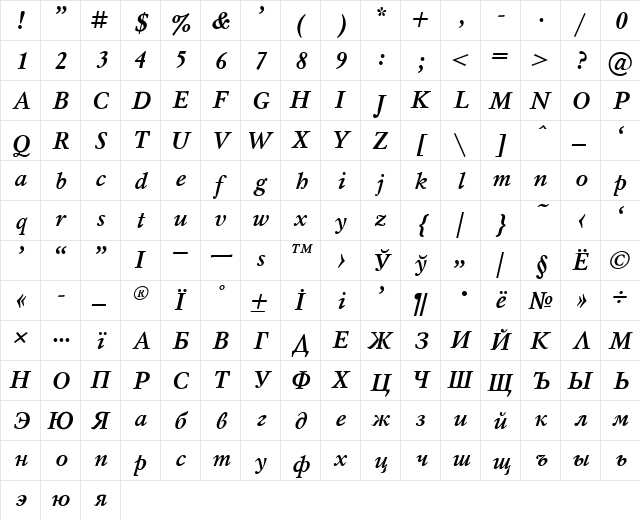
Mysl Bold Italic
Design Context for Mysl Typeface
Mysl takes a measured approach to typography — its balanced proportions and neutral character make it a reliable workhorse for both digital and print work. The dynamic lean of this cut emphasises speed and emphasis in any layout. The heavy weight commands attention and anchors typographic hierarchies.
Pro Tip: Use Mysl for emphasis, pull quotes, and subheadings where its slanted energy can add rhythm to the layout.